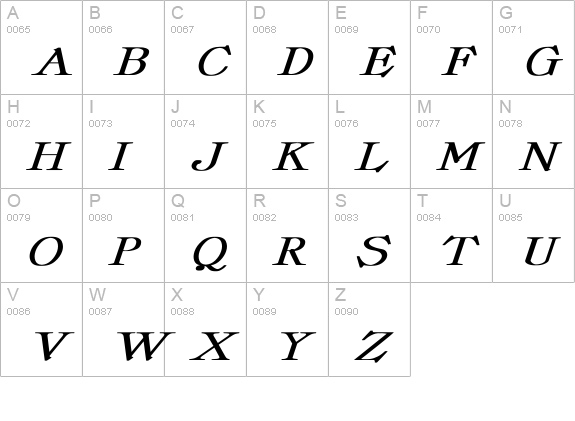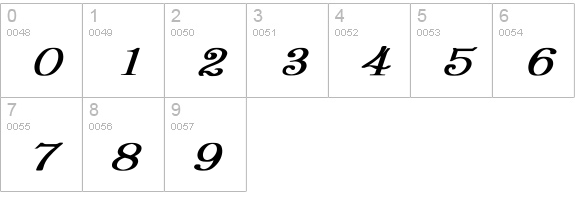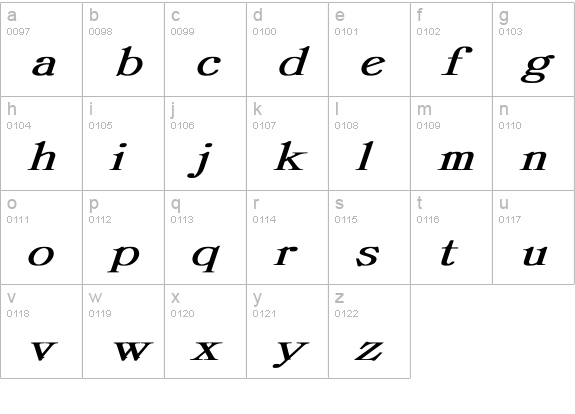
ProvLite Wd Bold Italic Font Details
ProvLite Wd Bold Italic is a strong, high-contrast, italic variant in the ProvLite typeface family \xE2\x80\x94 well suited to headlines, attention-grabbing titles, and strong calls-to-action.
ProvLite Wd Bold Italic is a sleek and modern font that exudes elegance and sophistication. Its bold italic style adds a touch of flair to any design project, making it perfect for headings, logos, and branding materials. With its clean lines and sharp angles, this font is sure to make a statement and capture the attention of your audience. And the best part? ProvLite Wd Bold Italic is available for free download at FontsMarket.com. This means you can easily access this stylish font and incorporate it into your creative projects without any cost. Don't miss out on the opportunity to enhance your designs with the striking beauty of ProvLite Wd Bold Italic - download it now and elevate your visual creations to the next level.